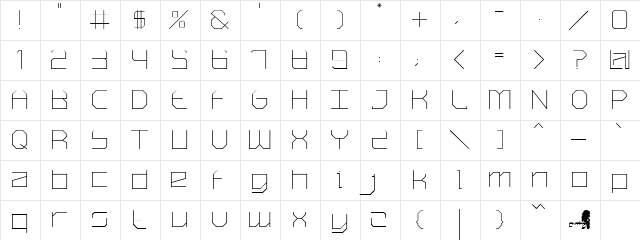
SM_contextisM Regular
Design Context for SM_contextisM Typeface
SM_contextisM takes a measured approach to typography — its balanced proportions and neutral character make it a reliable workhorse for both digital and print work.